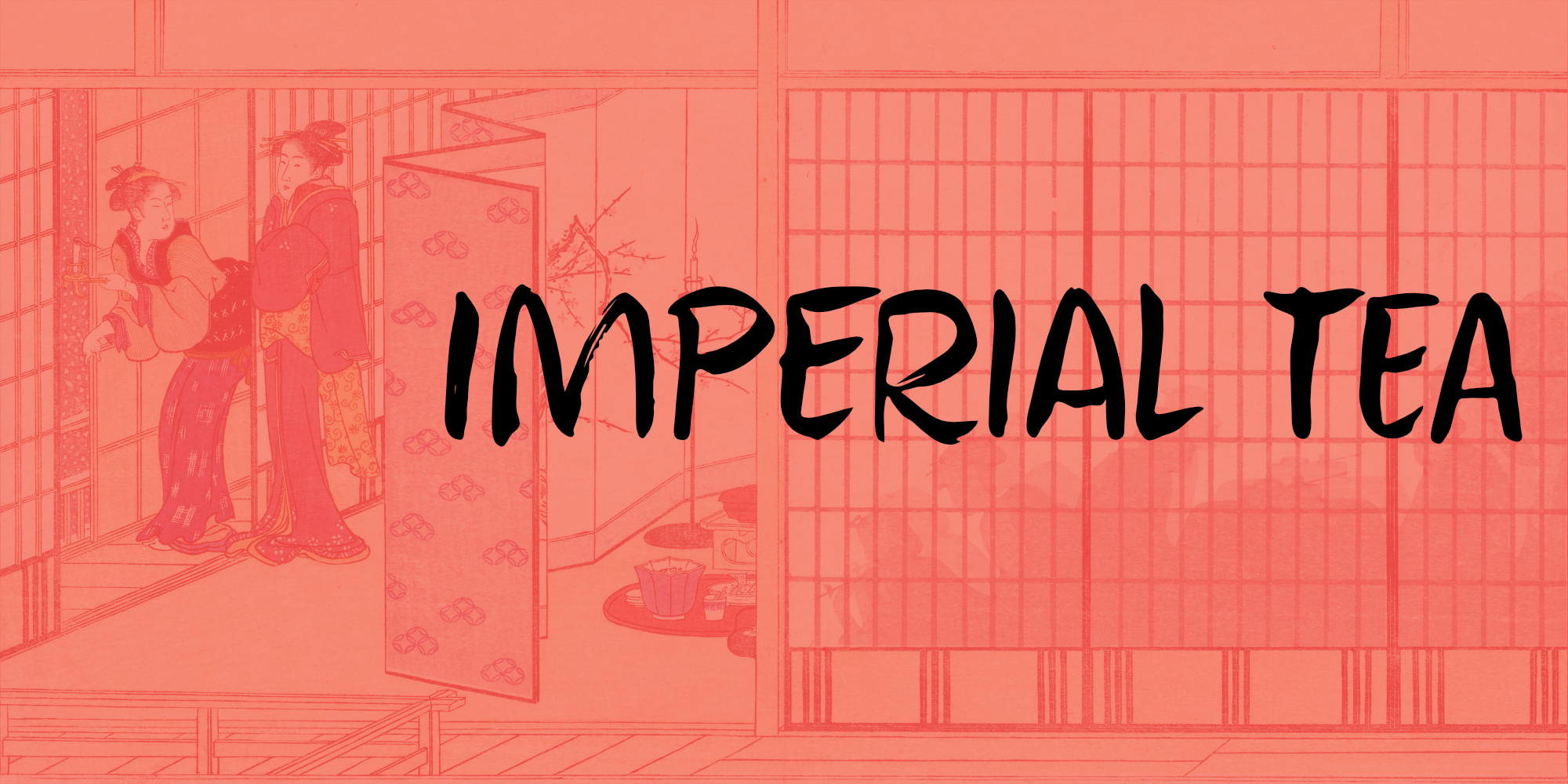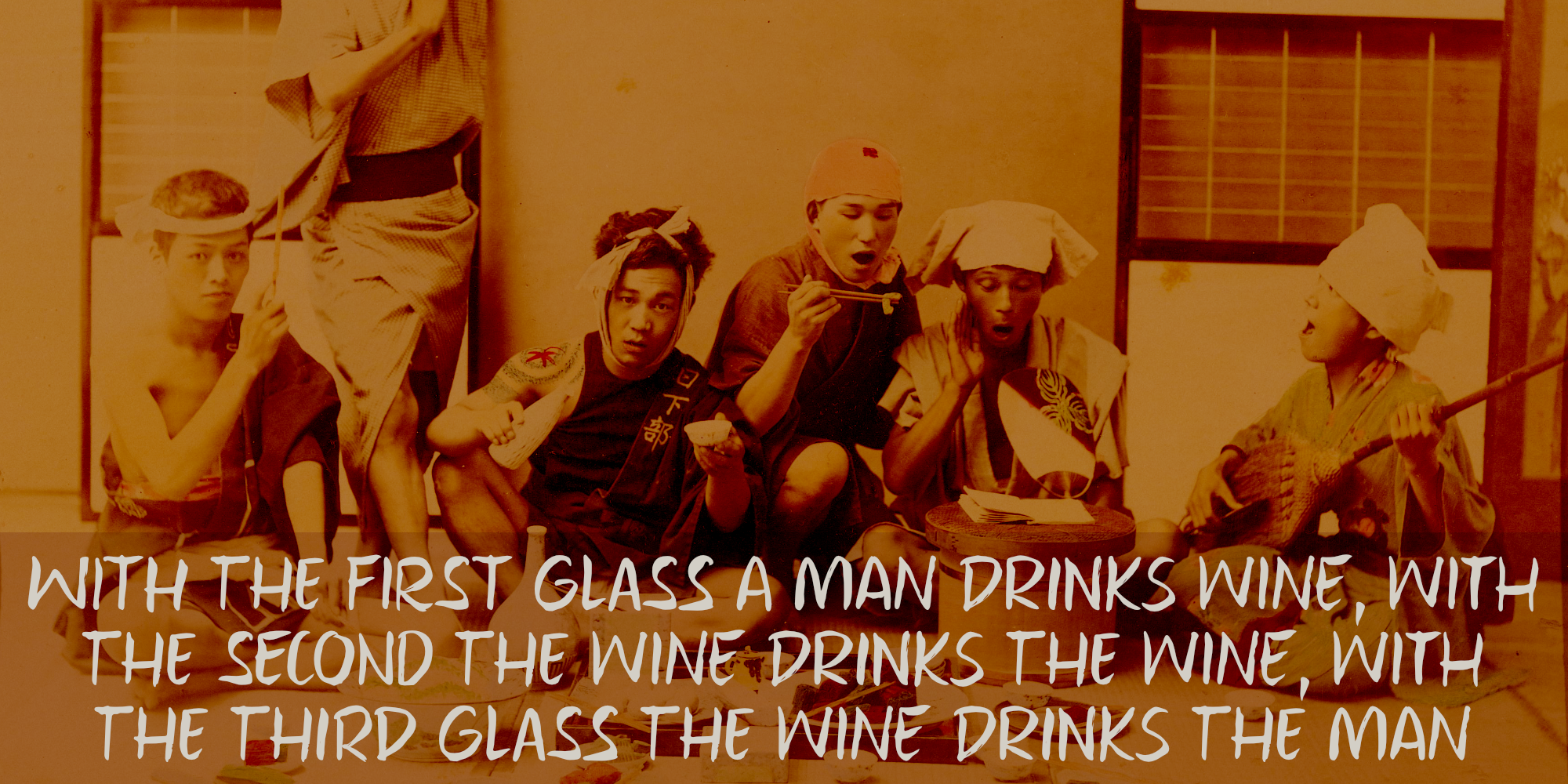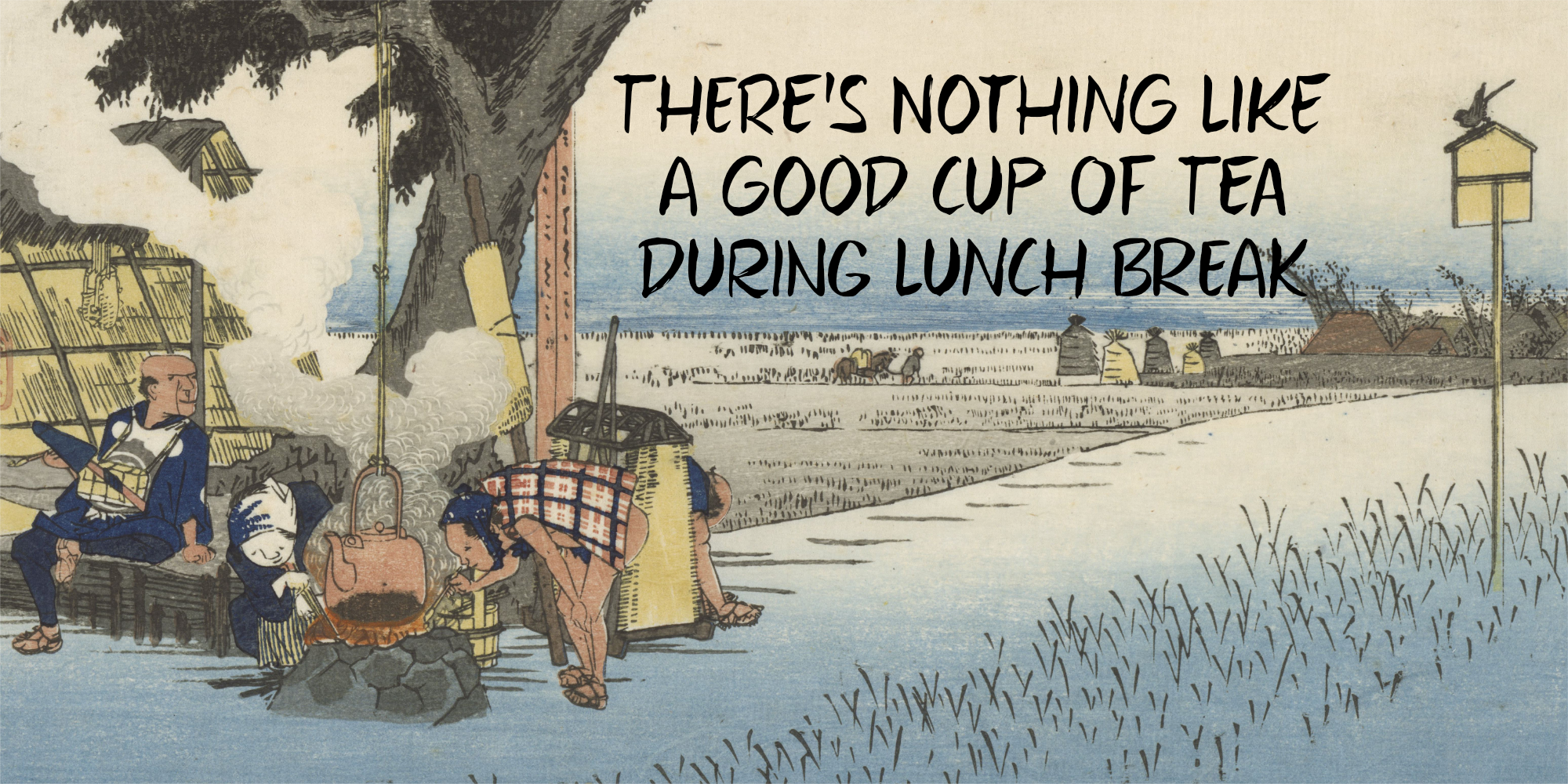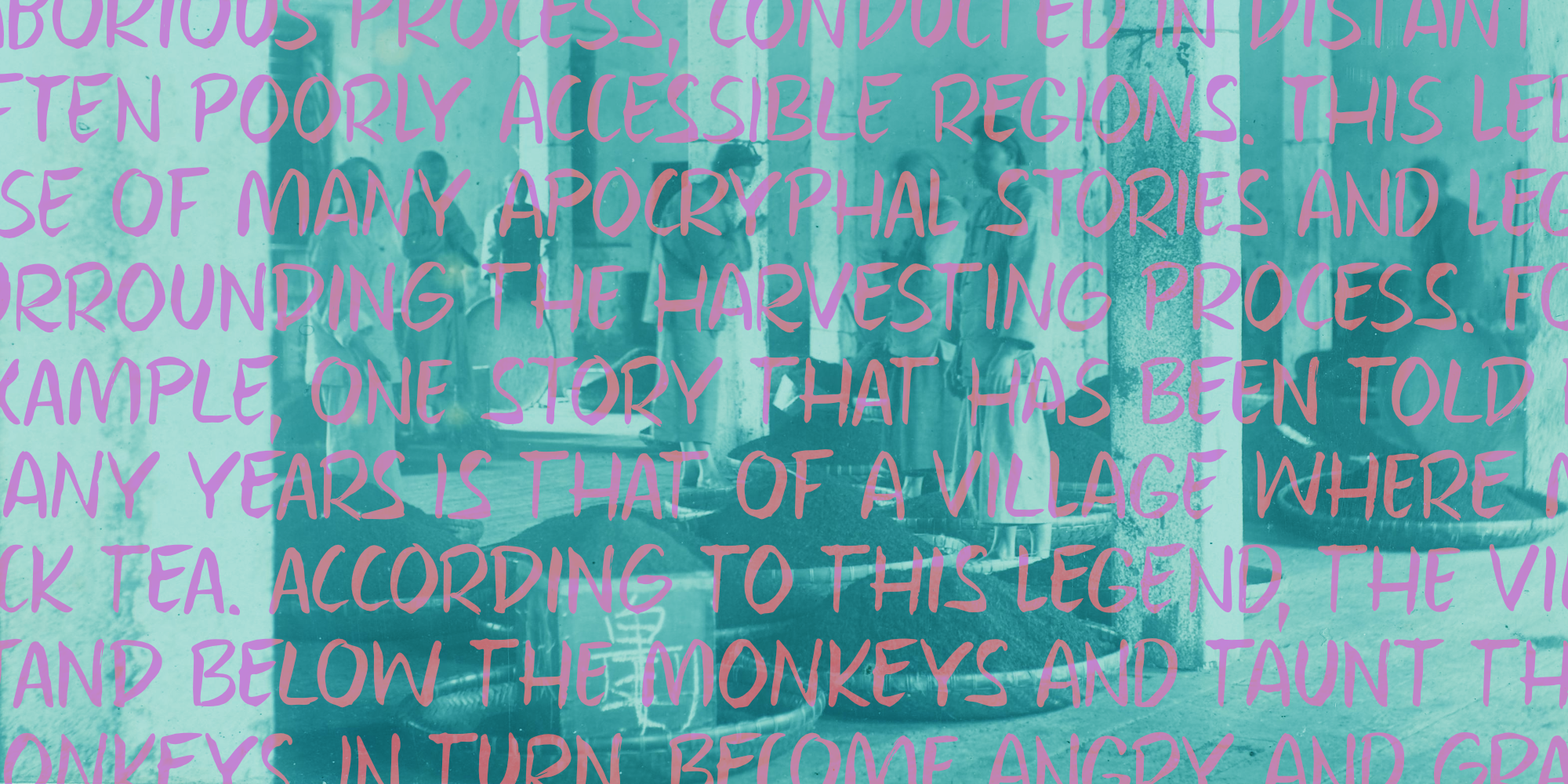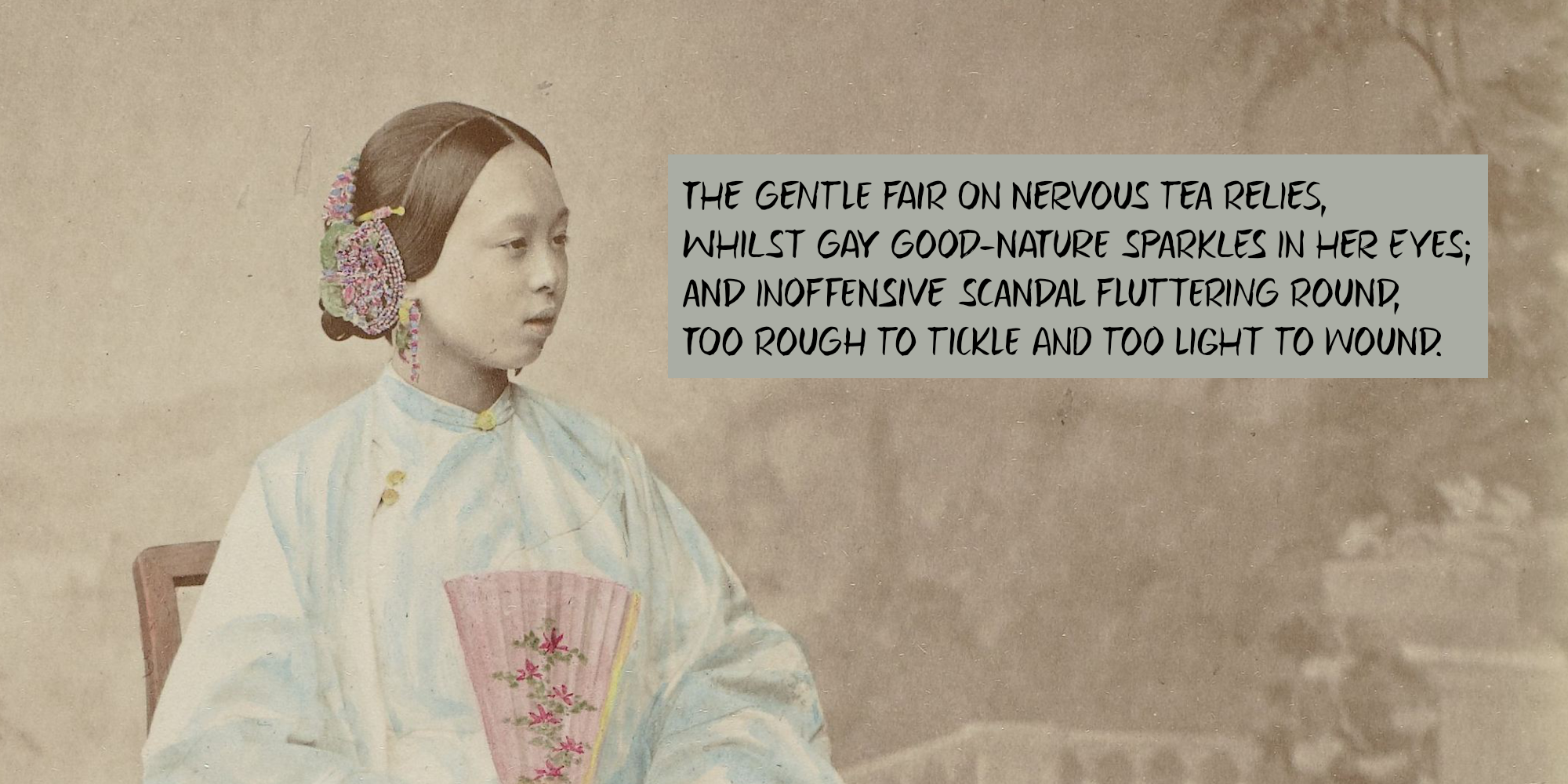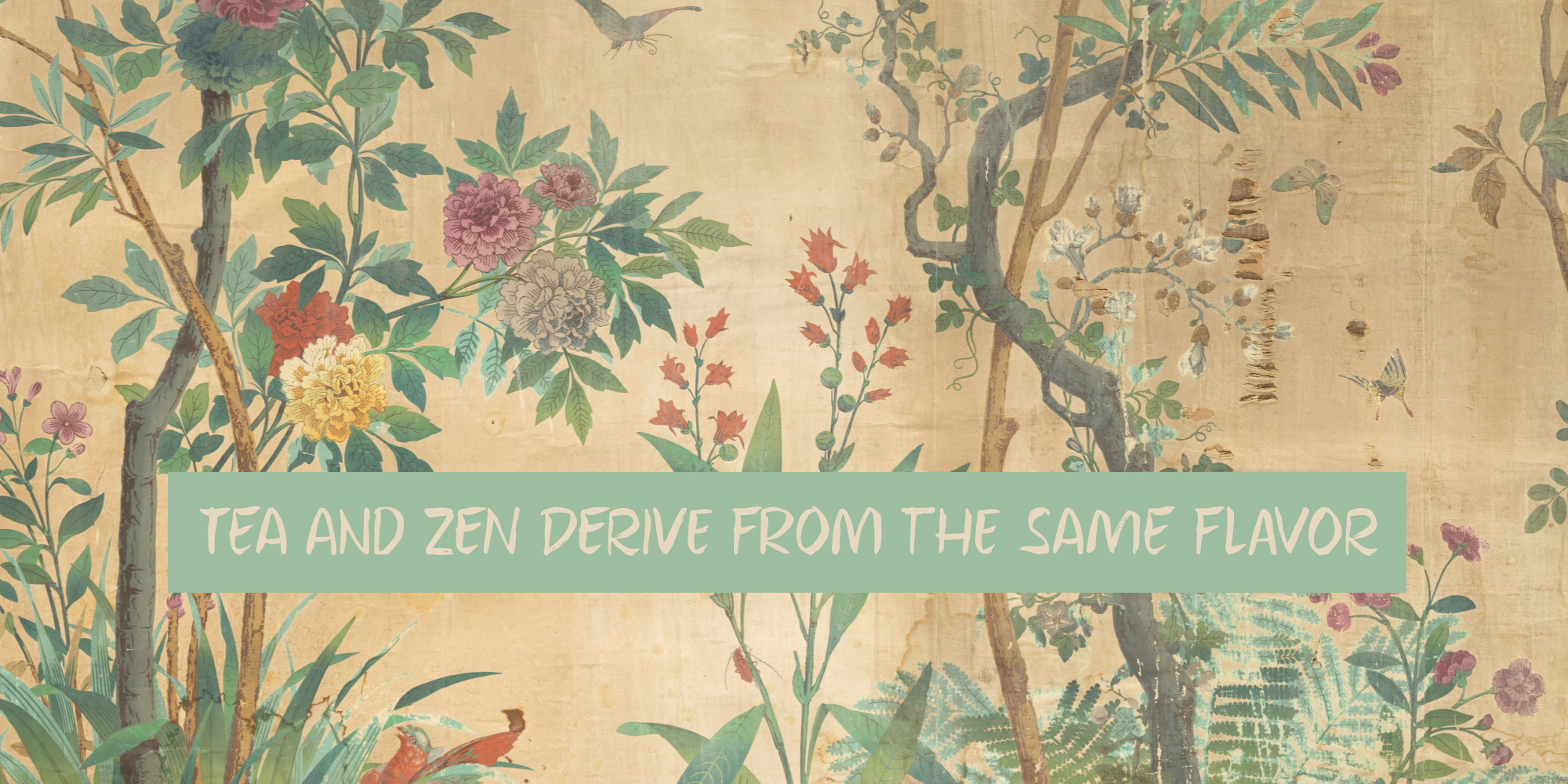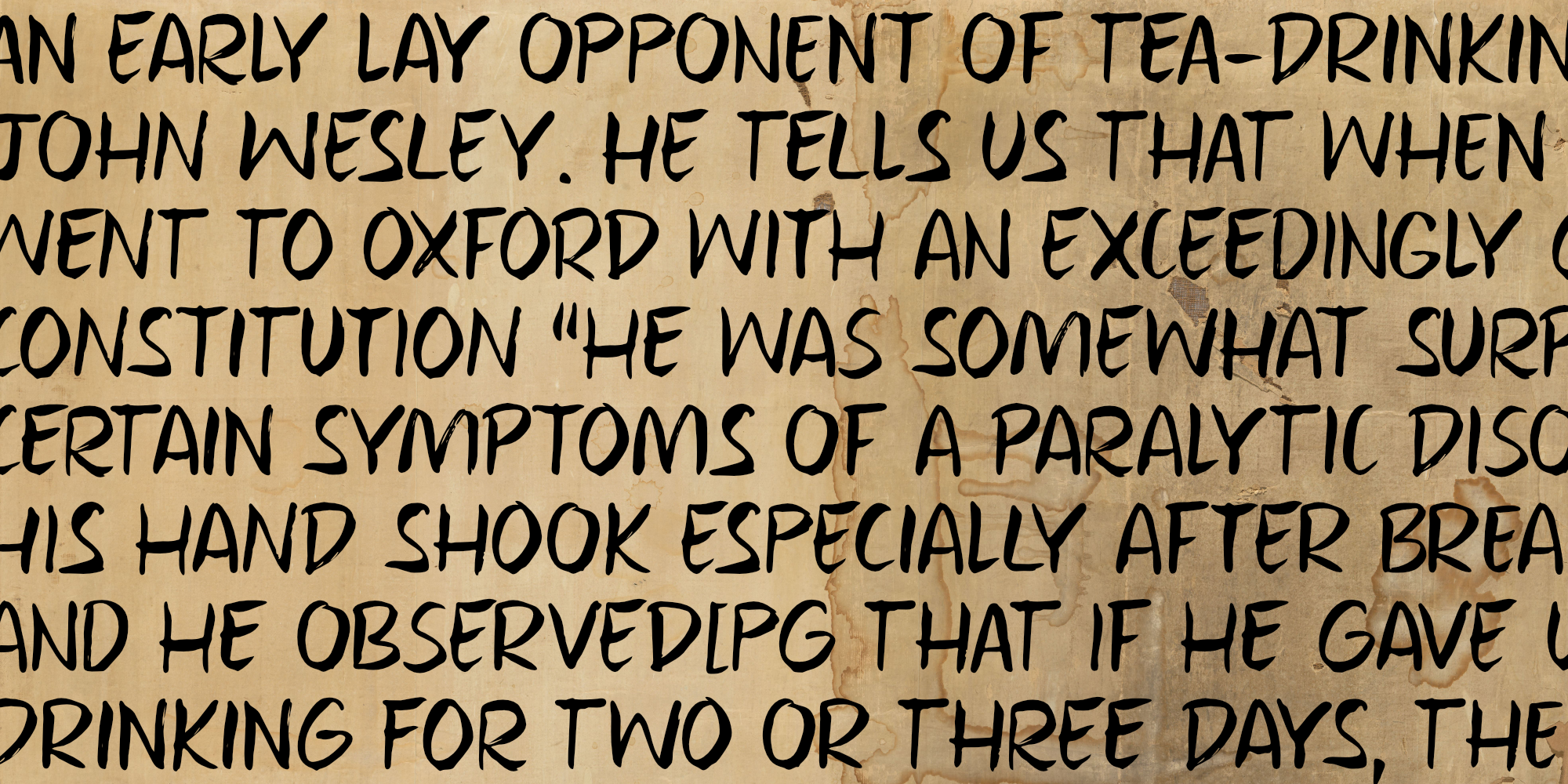
Imperial Tea (2 fonts)
Of course I was thinking of this when I created Imperial Tea font. Imperial Tea font was made with... yes, you've guessed it: Chinese ink and a brush. Imperial Tea is a nice, 'oriental-ish' looking font that comes with a set of alternate glyphs and an impressive language support, including Vietnamese and Greek.